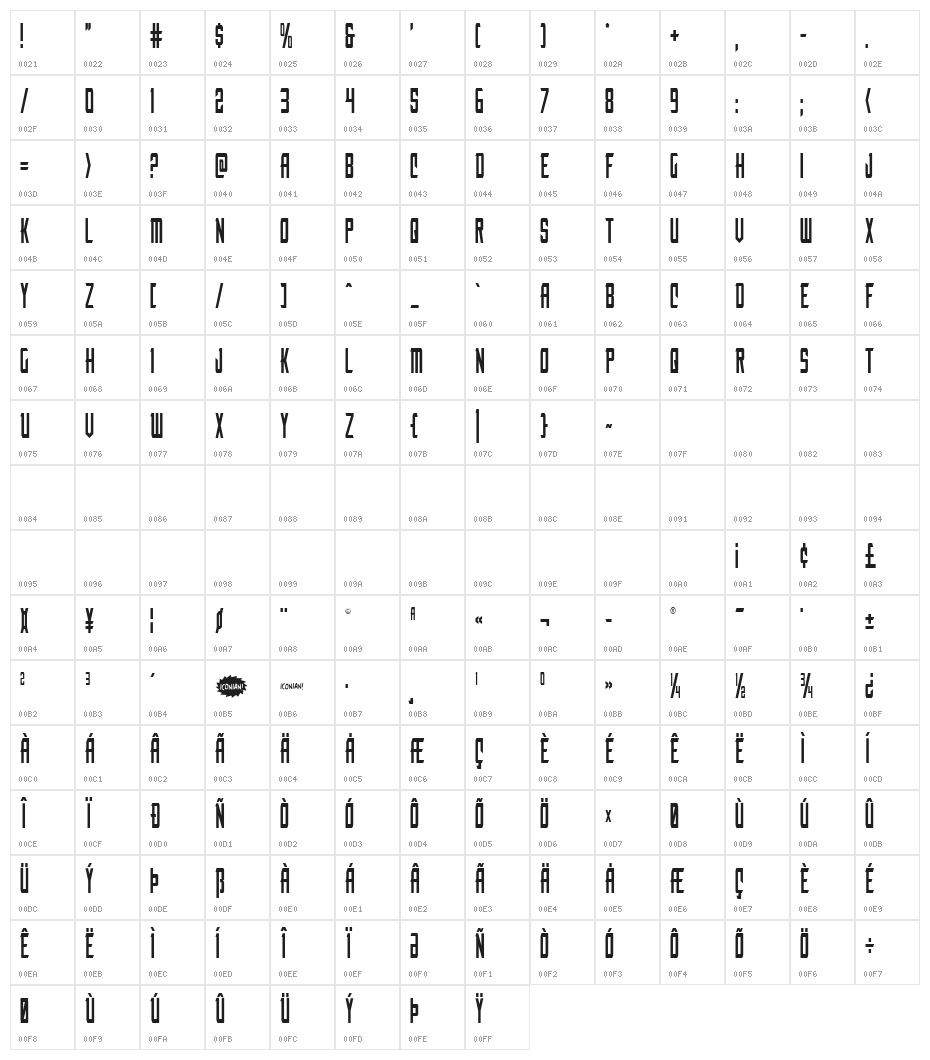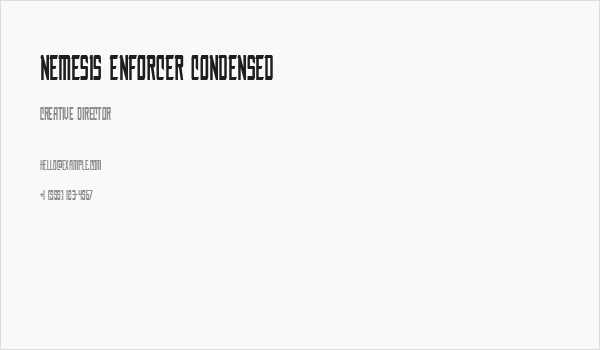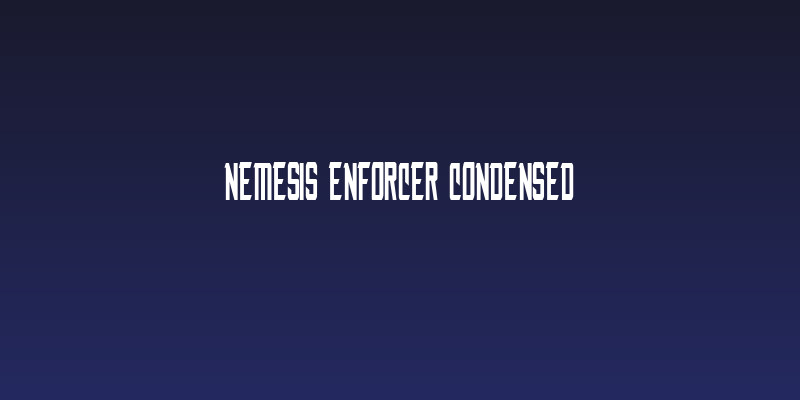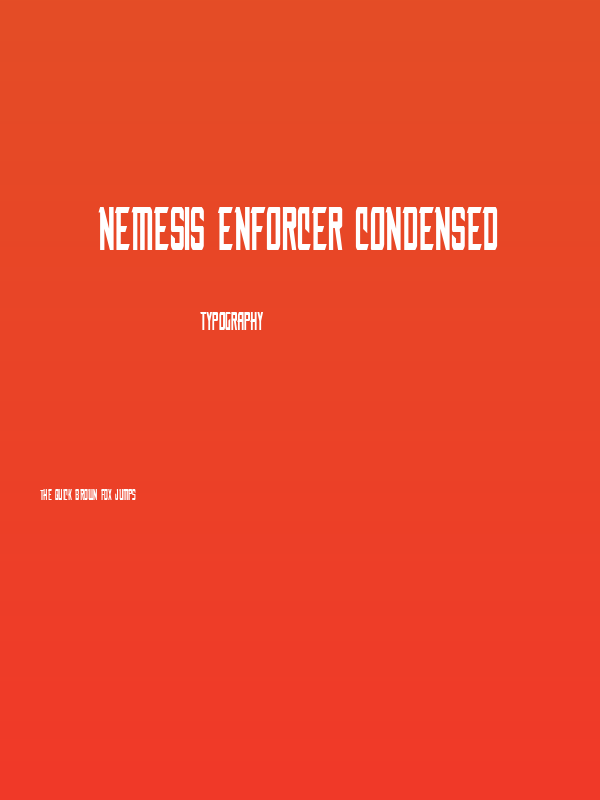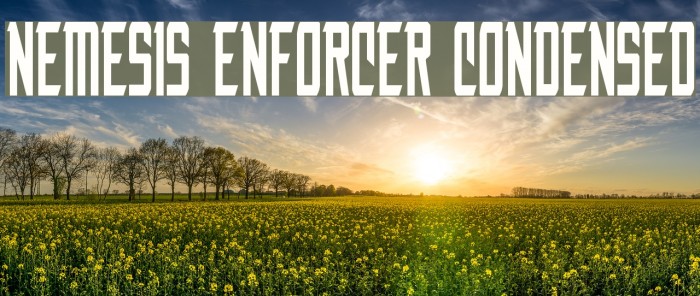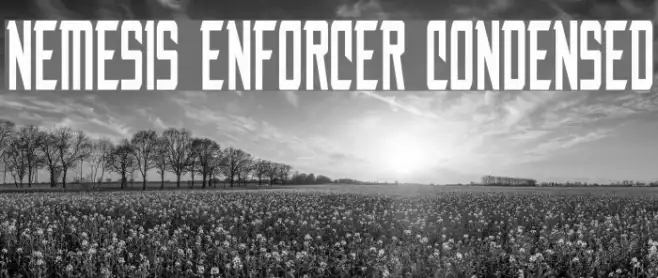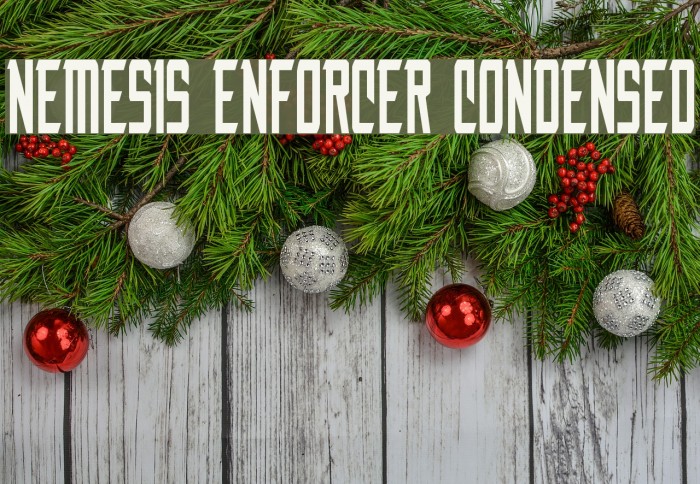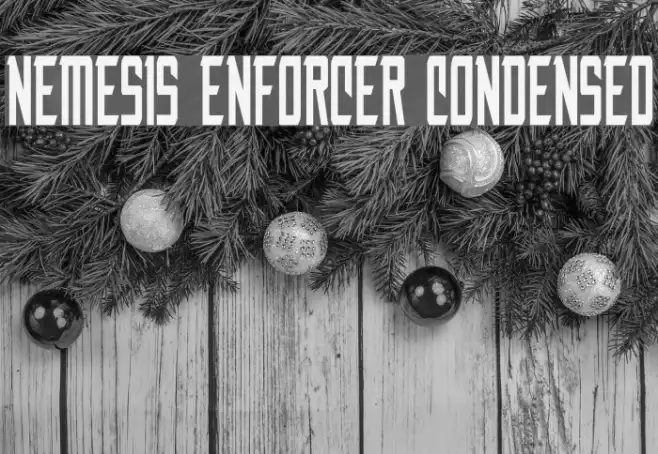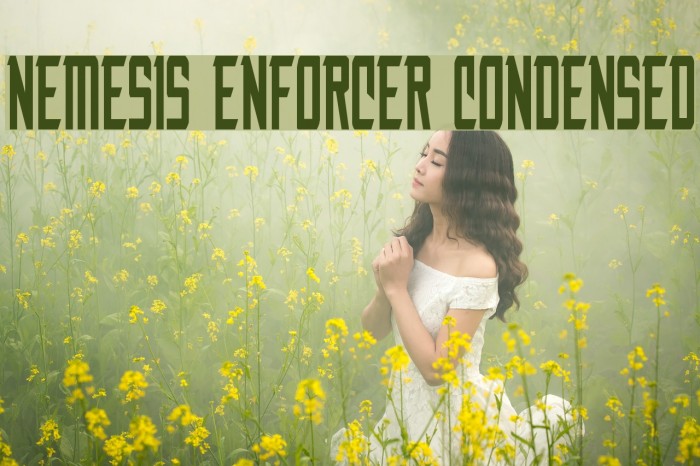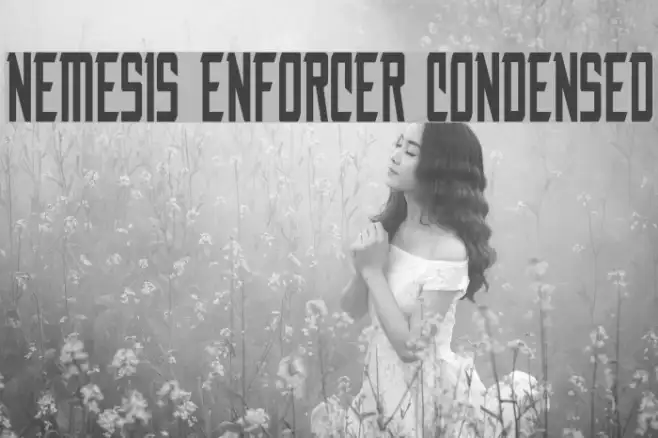
Nemesis Enforcer Condensed Font
Nemesis Enforcer Condensed Description
This font features a bold and condensed style with a strong geometric influence. The characters are tall and narrow, creating a striking and impactful appearance. The angular design of the letters gives it a futuristic and modern feel, while maintaining readability. The uppercase letters are particularly prominent, with sharp edges and a consistent height. The numerals and special characters follow the same design principles, ensuring uniformity across all glyphs. This font is ideal for making bold statements and capturing attention.